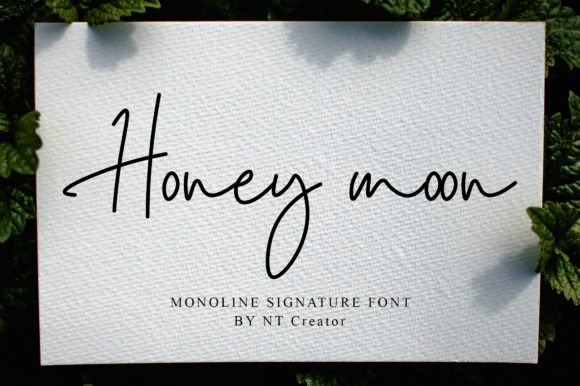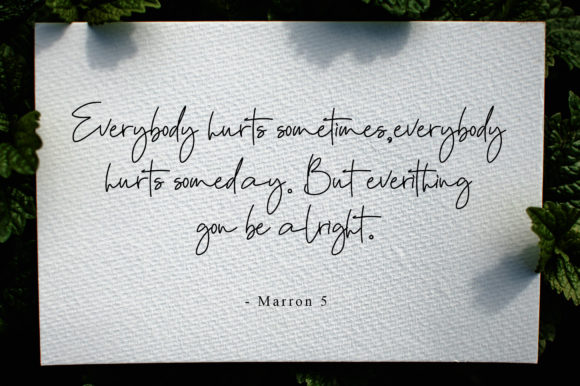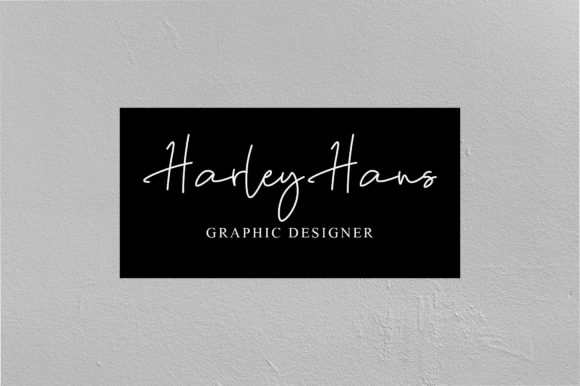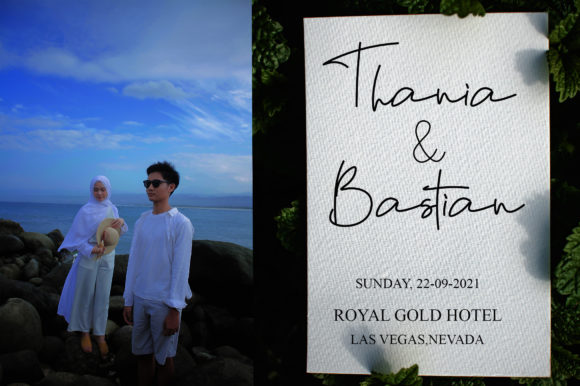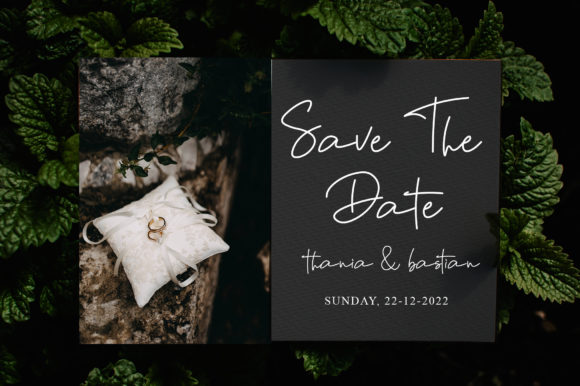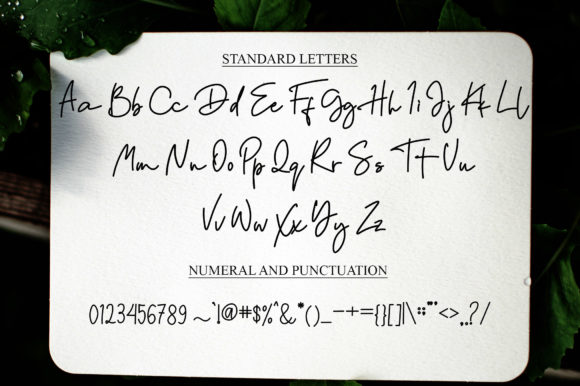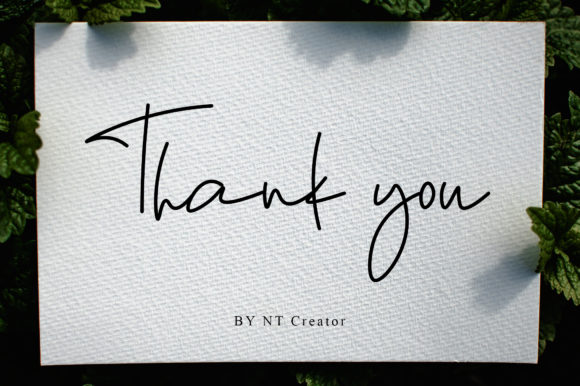
Discovering the Perfect Script: Honey Moon Font
You know that moment when you’re working on a design project and you need the perfect font to tie everything together? For me, it’s like searching for that elusive missing piece of a puzzle – it’s frustrating, but also exhilarating. And then, suddenly, you stumble upon it: a font that makes your design sing. For many of us, that font is Honey Moon Font, a stunning script that adds a touch of elegance and sophistication to any project.
Designed to be clean, thin, and smooth, Honey Moon Font is the perfect choice for designers looking to add a delicate touch to their work. Whether you’re creating a wedding invitation, a blog post, or a social media graphic, this font is sure to make your design stand out. Its versatility and beauty make it a valuable asset for any designer’s toolkit, and we can’t wait to share its secrets with you.
Honey Moon Font Key Features
- Font Family: Honey Moon
- Unique Characteristics: Honey Moon Font features a romantic, handwritten script with elegant flourishes and subtle texture, making it perfect for wedding invitations, love letters, and other romantic designs.
Honey Moon Font Review
Overall, I’m really impressed with the Honey Moon Font. It has a unique, whimsical feel that’s perfect for feminine or romantic designs. ✨ The font’s delicate lines and subtle flair make it a great choice for creating a dreamy, ethereal atmosphere.
Here are some specific things that I think work well:
- ✨ Elegant, cursive script that’s perfect for wedding invitations or other special occasion designs.
- ✨ Beautiful, flowing connections between letters that add to the font’s whimsical feel.
- ✨ Highly customizable, with plenty of options for adjusting letter spacing and font size.
However, there are a few limitations to be aware of:
- ⚠️ Limited language support, which may make it difficult to use for designs that require text in multiple languages.
- ⚠️ Not ideal for use in very large font sizes, as the delicate lines may become distorted.
Overall, I think the Honey Moon Font is a great choice for designers who want to add a touch of elegance and whimsy to their projects. While it may have some limitations, its unique feel and high level of customization make it a great addition to any design toolkit.
Tips for Getting the Most Out of Honey Moon Font
For best results, use Honey Moon Font for headings or titles, as it is most effective for larger text sizes. You can also use it for quotes or short phrases to add a touch of elegance to your design. Experiment with different font sizes and colors to find the perfect combination.
Honey Moon Font is ideal for wedding invitations, baby shower invitations, and other special occasions. It is also suitable for creating a romantic atmosphere in your design or branding materials.
Alternative Fonts to Honey Moon Font
Great Vibes is a modern, elegant script font that is perfect for wedding invitations, greeting cards, and other romantic designs. It has a similar feel to Honey Moon Font but with a more refined and sophisticated look.
Comparison: Great Vibes has a more polished and refined look compared to Honey Moon Font, making it ideal for high-end wedding designs or luxury branding.
Carolyna Pro is a stylish, cursive font that is great for creating a whimsical and romantic atmosphere. It has a similar playful feel to Honey Moon Font but with a more modern and sophisticated twist.
Comparison: Carolyna Pro has a more modern and sleek look compared to Honey Moon Font, making it ideal for contemporary wedding designs or fashion branding.
Alex Brush is a elegant, handwritten font that is perfect for creating a personal and intimate feel. It has a similar handwritten feel to Honey Moon Font but with a more refined and sophisticated look.
Comparison: Alex Brush has a more refined and sophisticated look compared to Honey Moon Font, making it ideal for high-end branding or luxury packaging.
Q: Can I customize the Honey Moon Font to fit my specific design needs?
The Honey Moon Font is a highly customizable font, allowing you to adjust various parameters such as font size, line height, and letter spacing. You can also use font editors or software like Adobe Illustrator to further customize the font to fit your specific design needs.